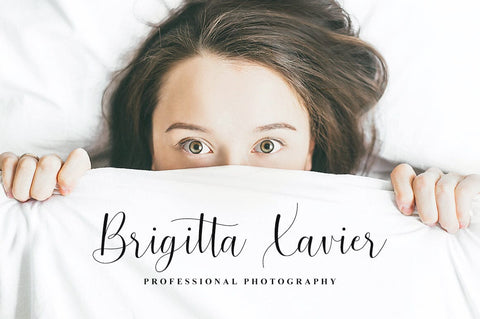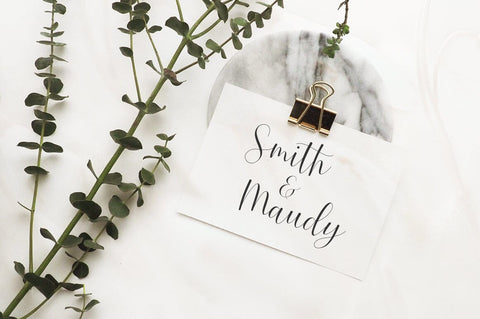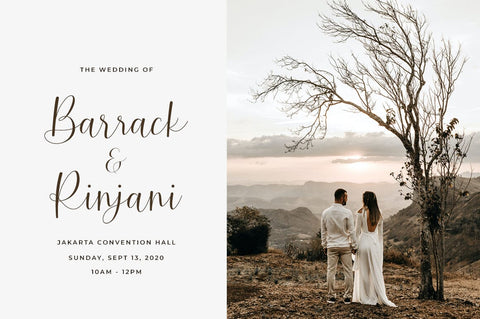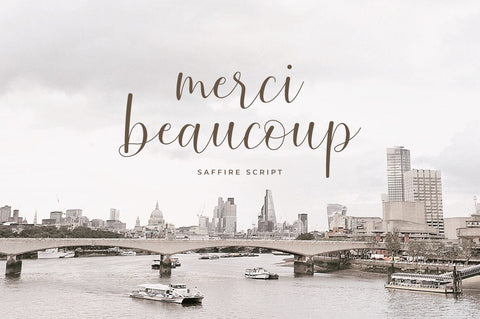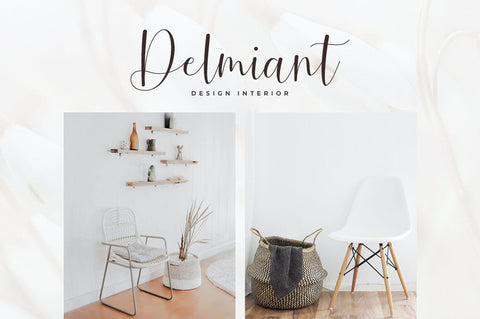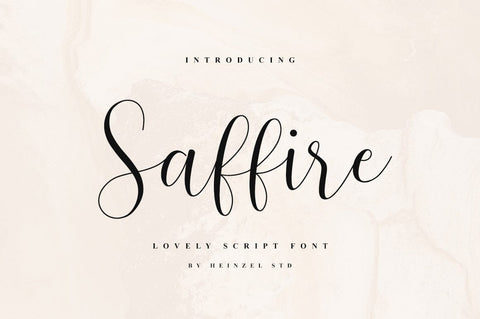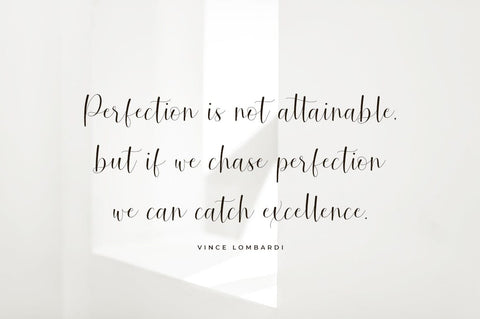
Saffire Lovely Script Font
Saffire is an elegant and flowing handwritten font. It is PUA encoded which means you can access all of the glyphs with ease! It features a varying baseline, smooth lines, gorgeous glyphs and stunning alternates and ligatures. Fall in love with this font and bring your projects to the highest levels.
Saffire also includes full set of uppercase and lowercase letters, multilingual symbols, numerals, punctuation. The font has smooth wet ink texture, so would be perfect for all types of printing techniques+you can do embroidery, laser cut, gold foil etc.
- Ligatures & Alternates